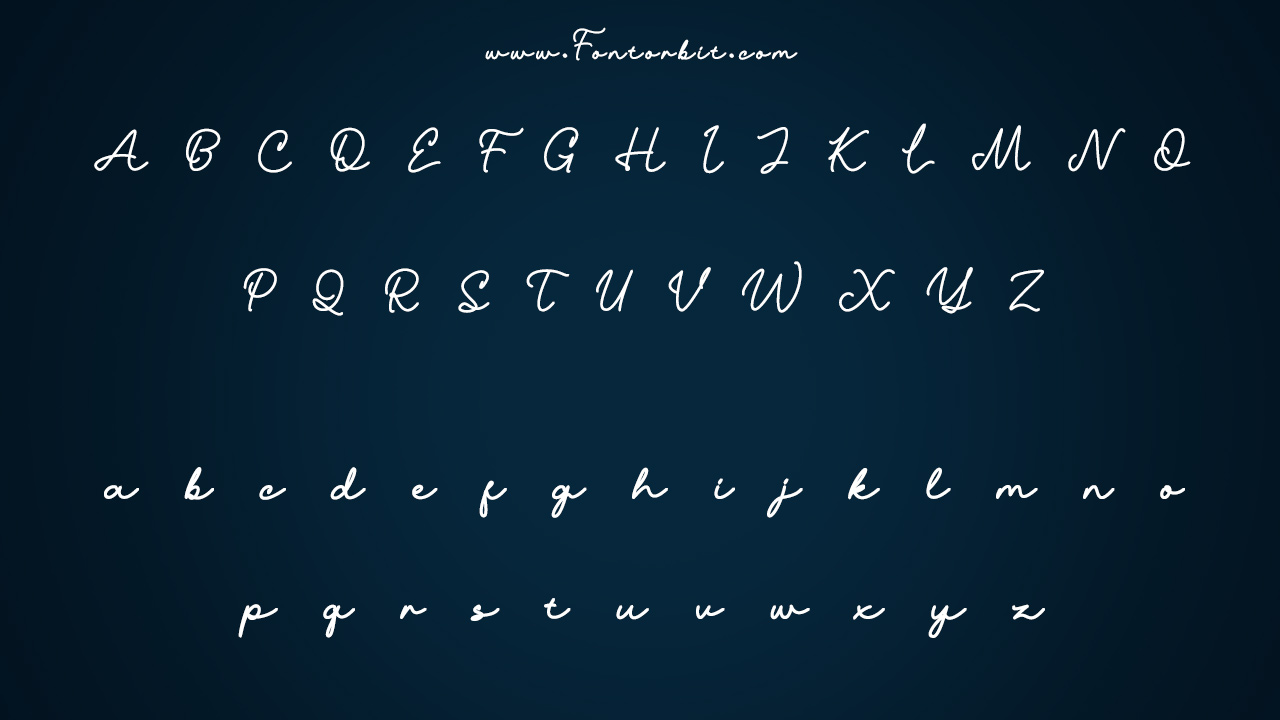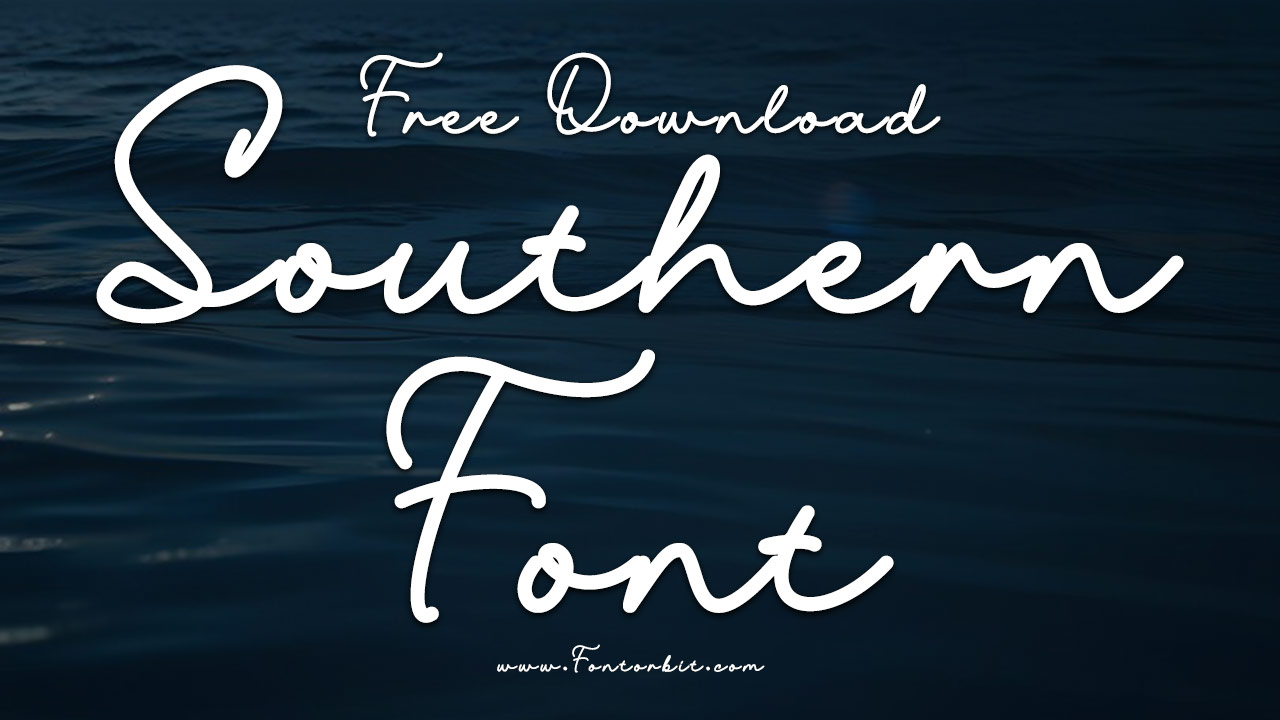
The Southern font is a versatile typeface that brings a touch of charm and elegance to any design. Designed by Alit Suarnegara. This font falls under the Handwritten Typeface category. Its distinctive style makes it a popular choice for various creative projects.
Southern offers a range of styles to suit different design needs. Its flexibility allows it to be used in a variety of settings. The font family includes:
Notable Uses Of Southern Font
Southern is ideal for creating eye-catching invitations, stylish posters, and sophisticated branding materials. Its classic look lends itself well to both formal and informal occasions, making it a great choice for wedding invitations, event announcements, and more.
This font is perfect for use in elegant and vintage-themed projects. You can use Southern for:
- Greeting cards
- Logo design
- Headings and titles
- Brochures and flyers
Southern is a font that combines elegance with versatility, making it a valuable asset for any designer’s toolkit. Whether you’re working on personal projects or professional materials, Southern’s refined style will enhance your designs and provide a classic touch.